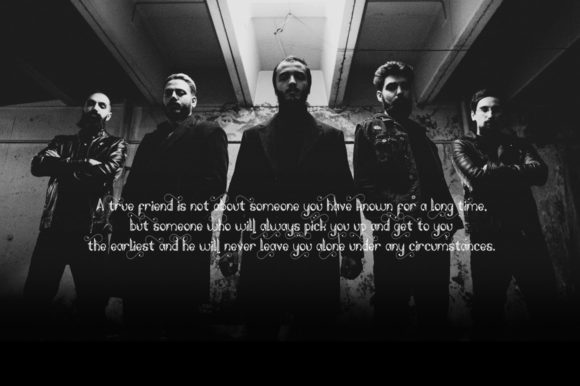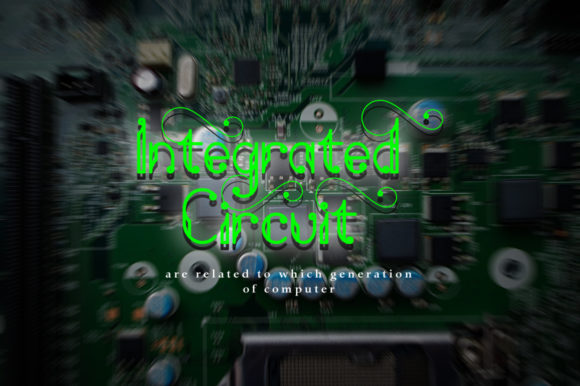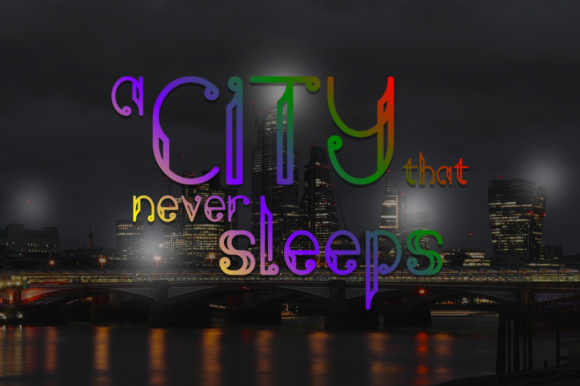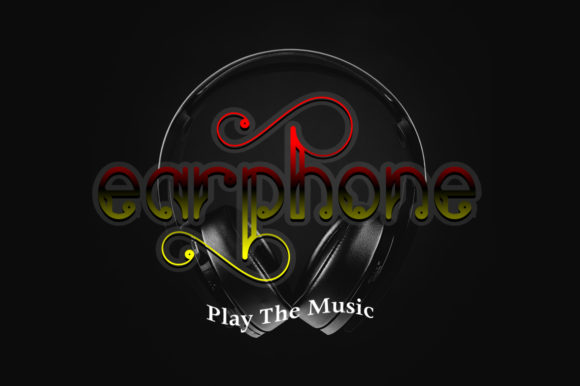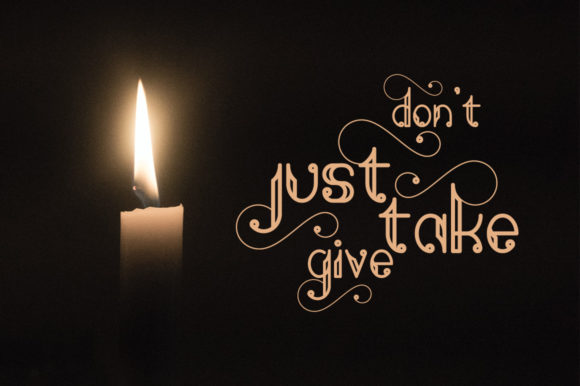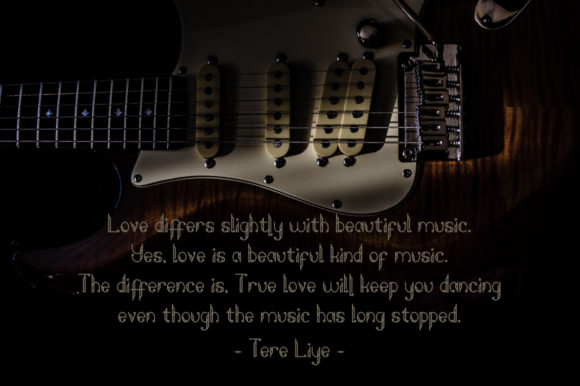
Introduction to Black Jack with Chessboard Font
Black Jack is a simple and casual display font.
It is incredibly neat and stylish and it fits various designs, both formal and informal .